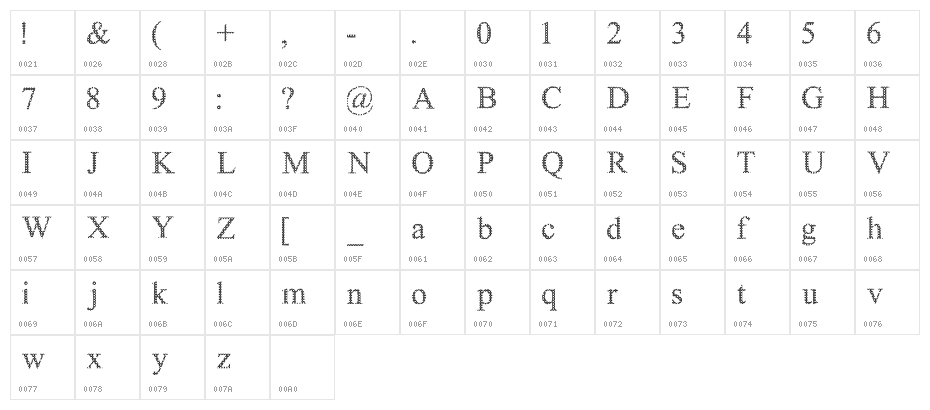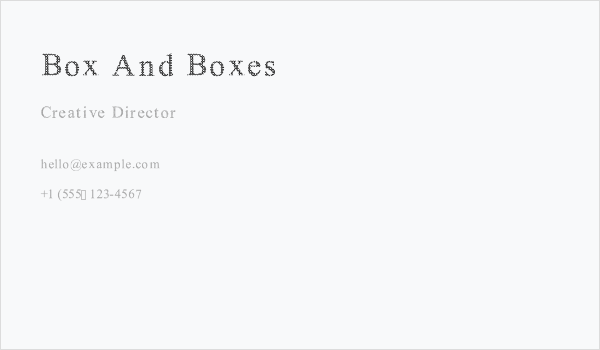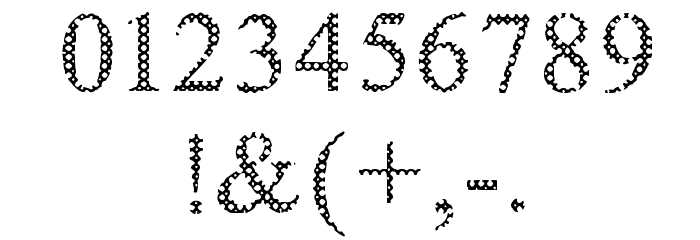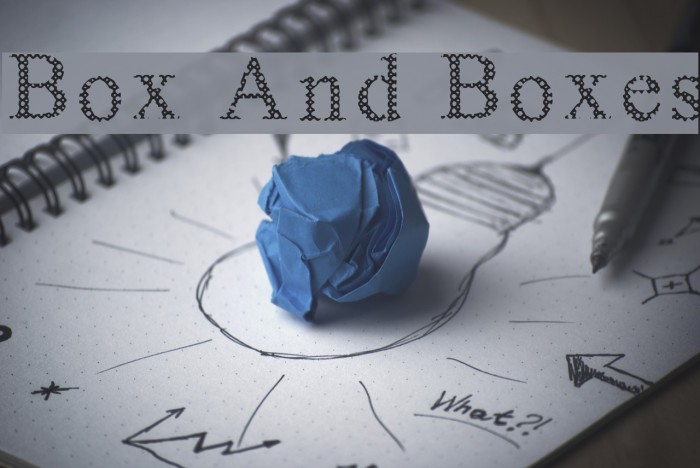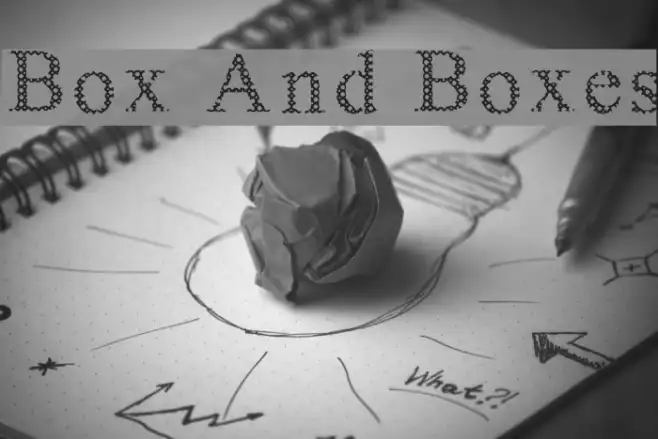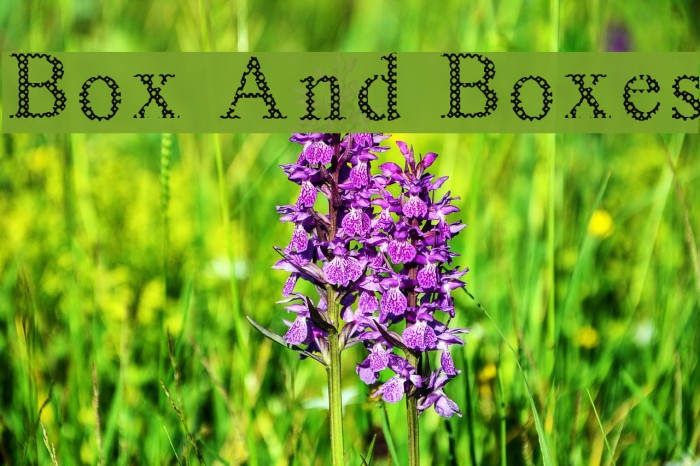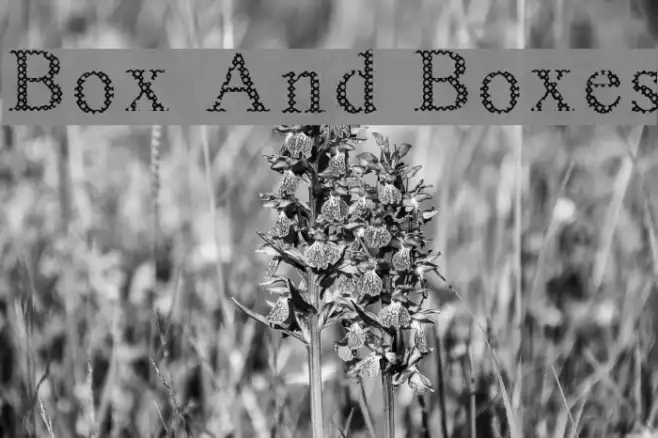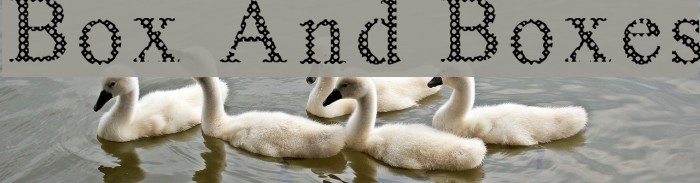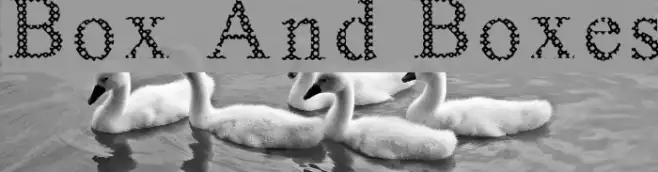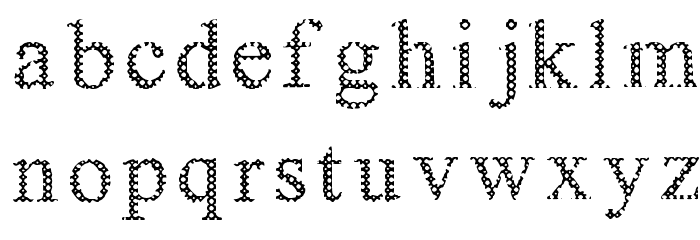
Box And Boxes Font
Box And Boxes Description
This font features a unique and decorative style characterized by a pattern of small, box-like shapes forming each letter. The uppercase and lowercase letters maintain a consistent design, with a playful yet structured appearance. The numbers and special characters follow the same pattern, ensuring uniformity across all glyphs. The intricate detailing makes it stand out, ideal for creative and artistic projects. The font's distinct look is both modern and whimsical, offering a fresh take on traditional serif styles.
| Use Case | Logos, Posters, Invitations |
| Proposed Projects | Ideal for creative projects such as posters, invitations, and branding materials that require a unique and artistic touch. |